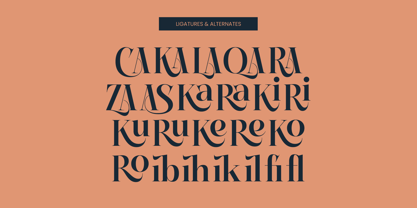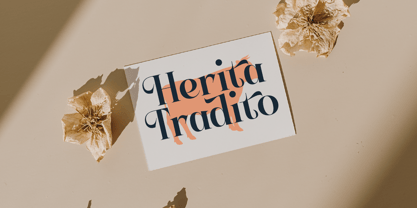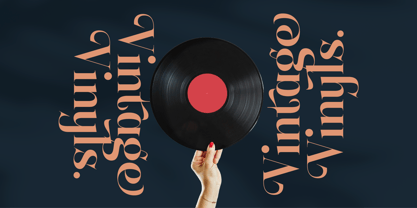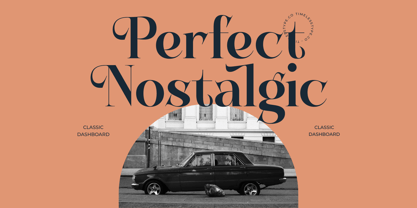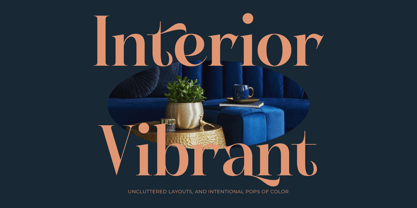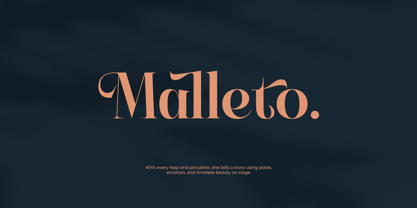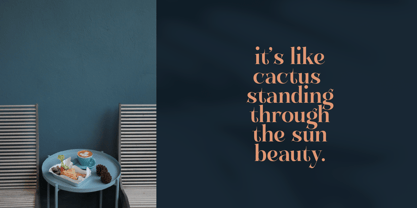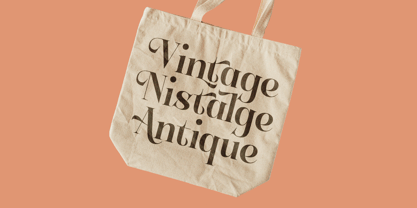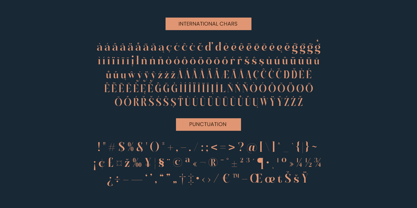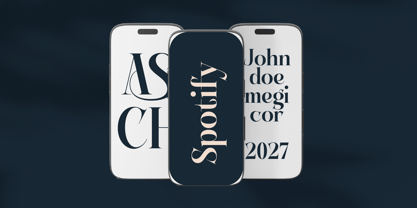
Keylag Borden
by Timelesstype Studio
The Keylag Borden Font Family was designed by Heru Utama Putra and published by Timelesstype Studio. Keylag Borden contains 2 styles and family package options.
Keylag Borden - Modern Serif Font , from Timelesstype, Suitable for any projects such as: logos, branding projects, homeware designs, product packaging, mugs, quotes, posters, shopping bags, t-shirts, book covers, name card, invitation cards, greeting cards, label, photography, watermark, special events, and all your other luxury and beautiful projects that need a Luxury Serif taste.